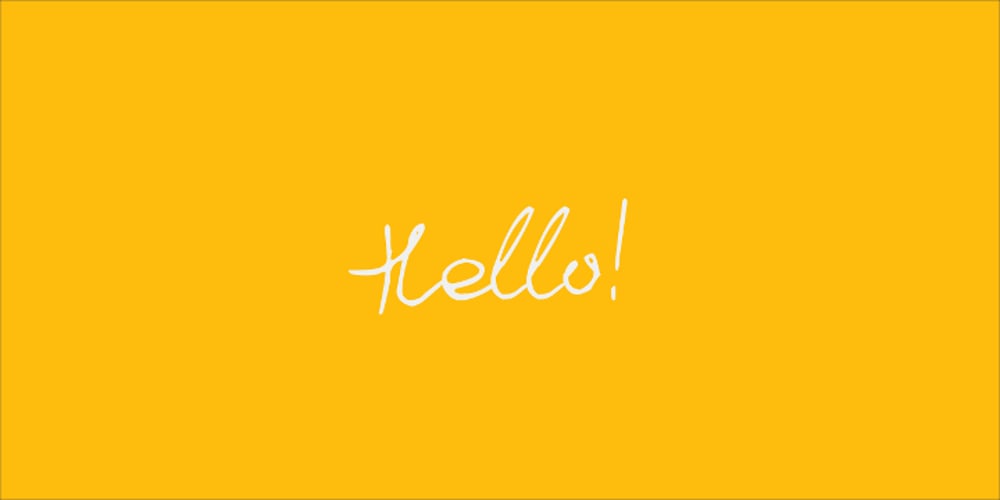
Ballpen Font Family was designed by Aga Silva and published by Aga Silva. Ballpen contains 2 styles and family package options. This font is packed with over 1,100 glyphs and gives you vast possibilites to give handwritten feel to your text – be it in English, Íslenska, Russian, Cymraeg or Čeština. Apart from featuring great number of letters there are also dingbats, roman numerals and mathematical operators included. Recommended to use in projects where personalized, legible, cheerful and straightforward look is required. The design is inspired by mature handwriting, unisex in expression.